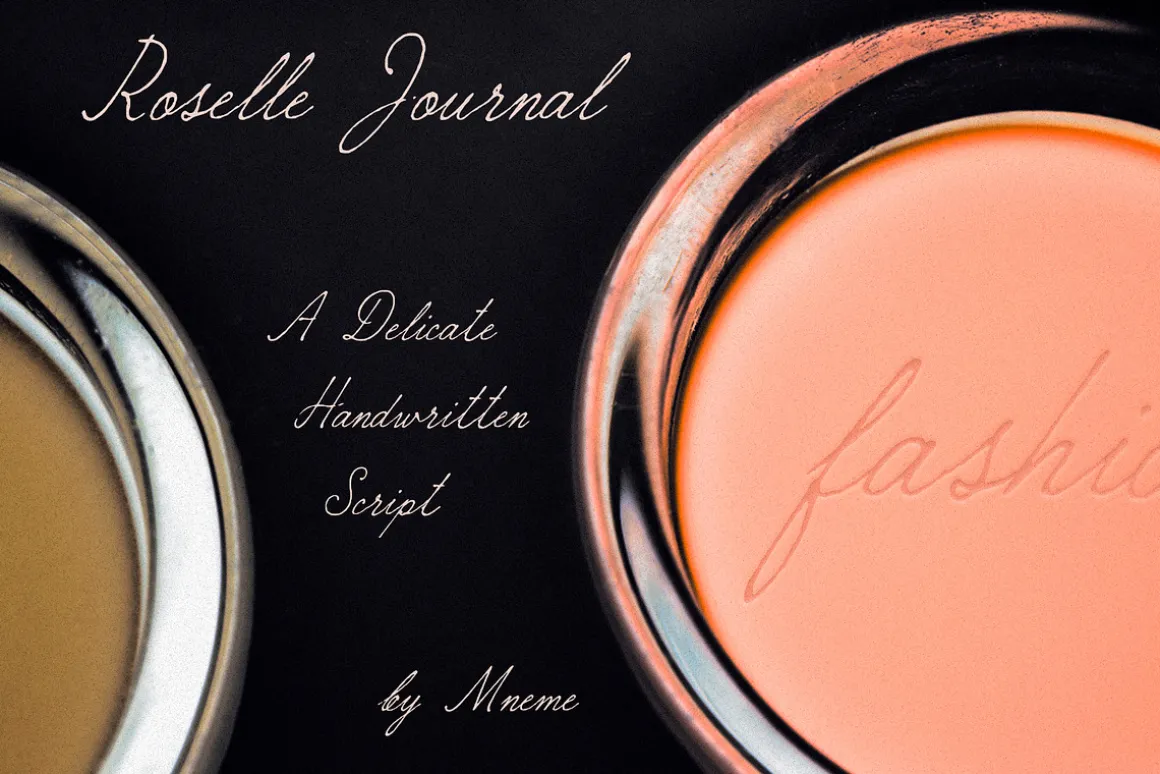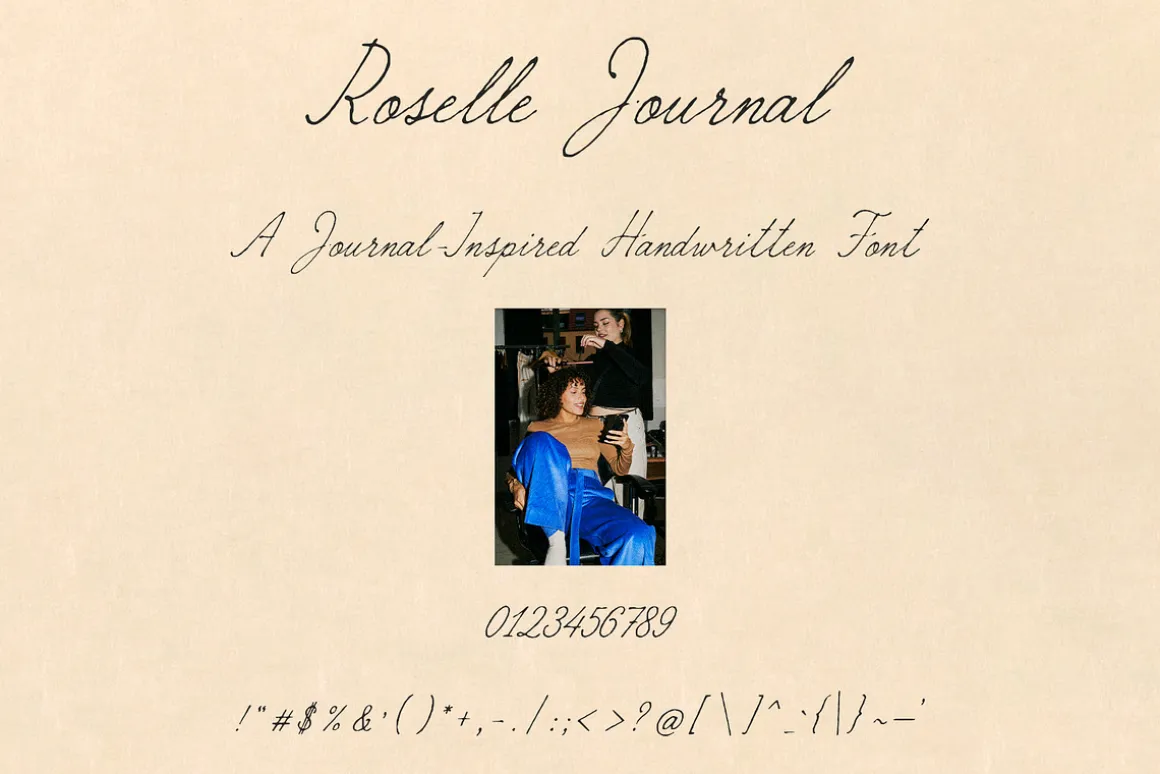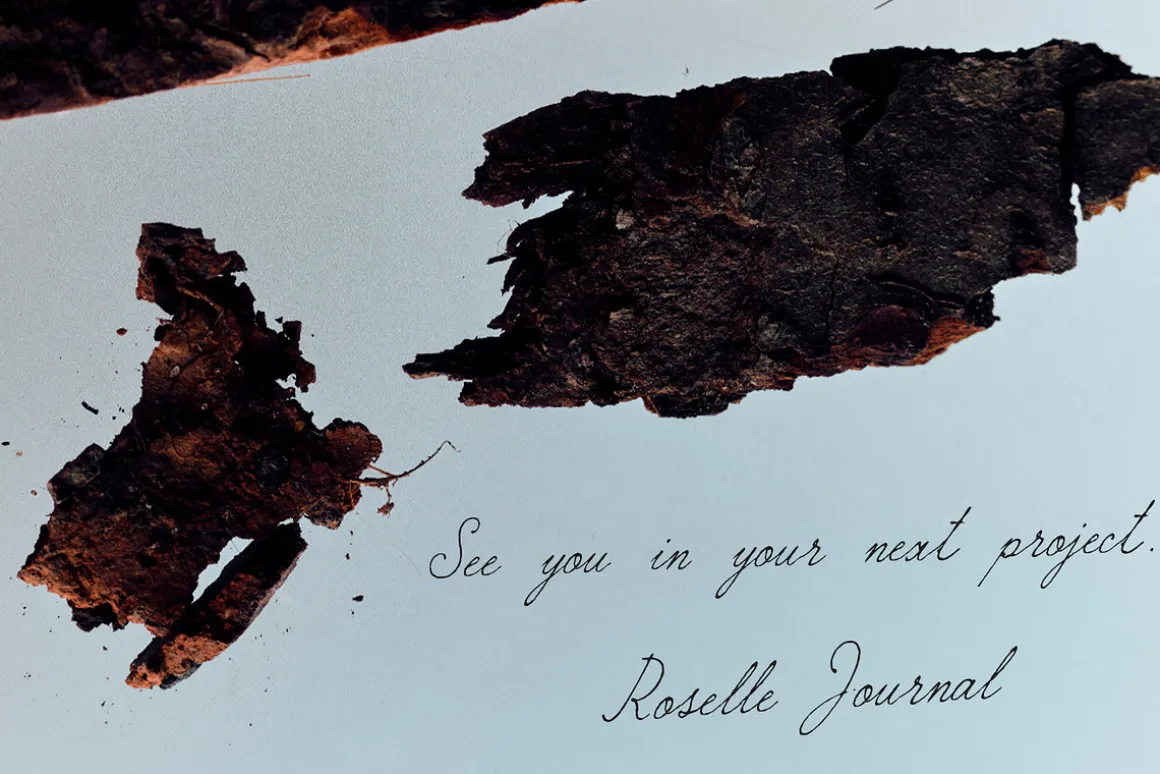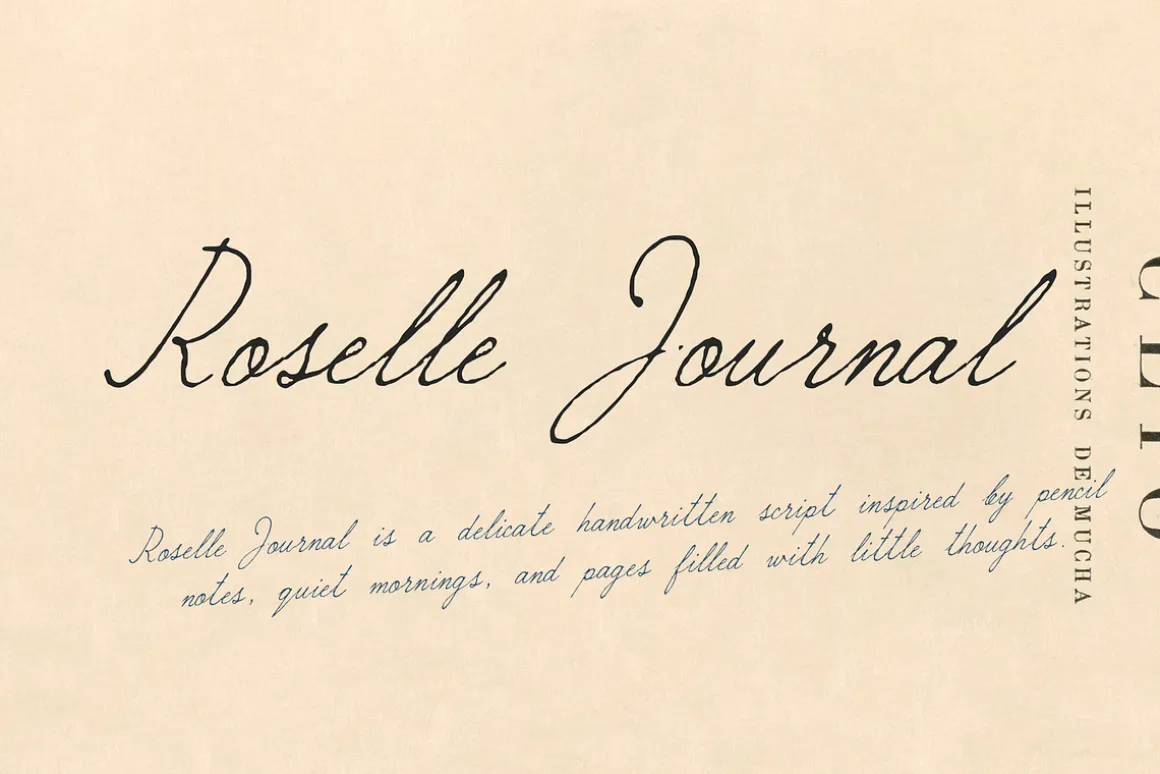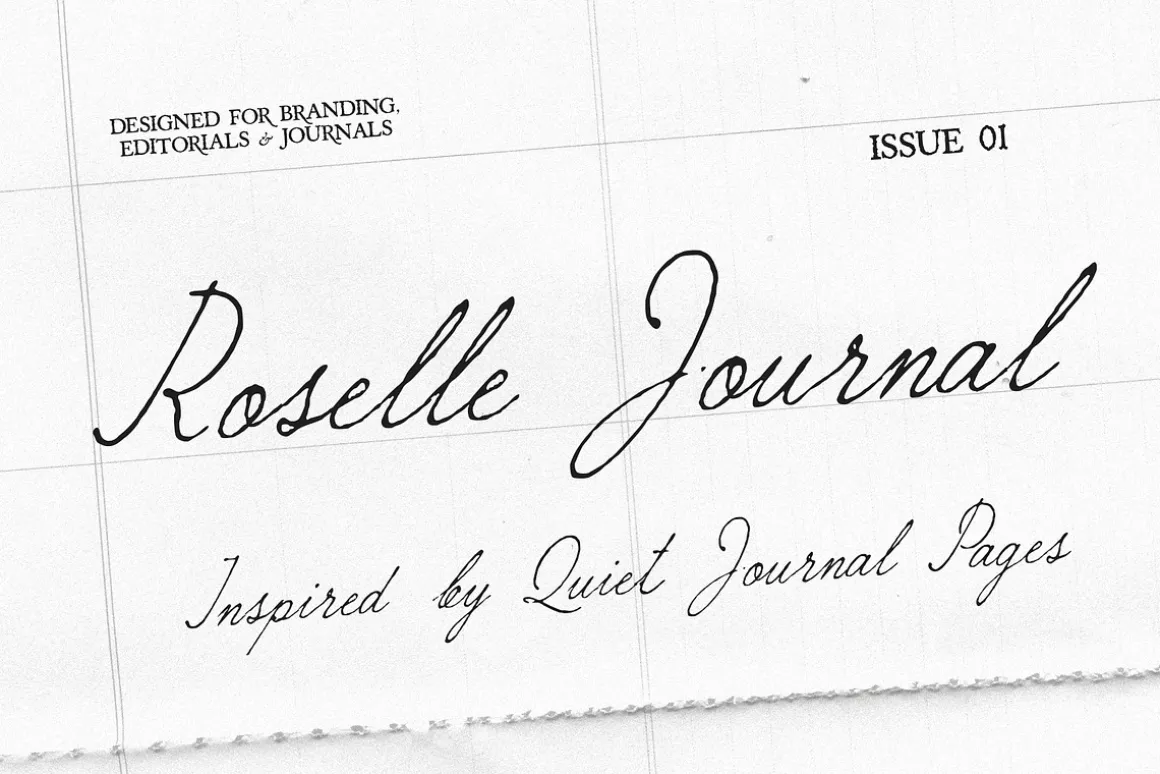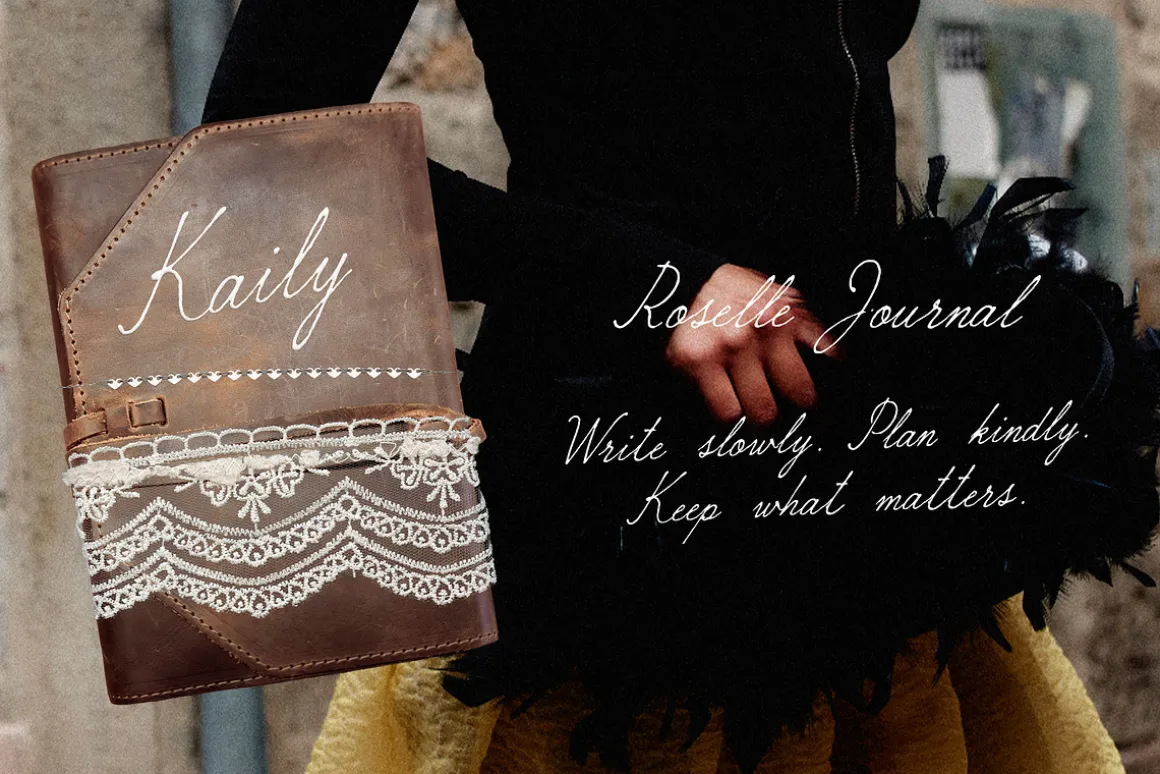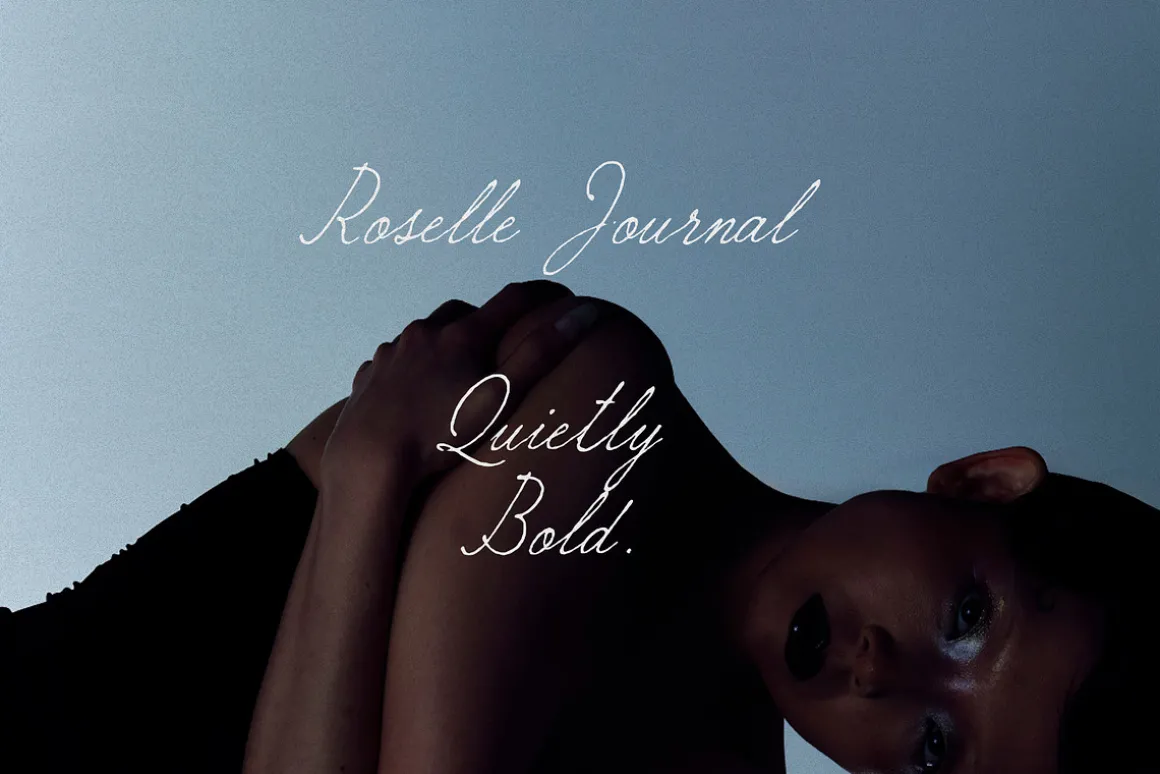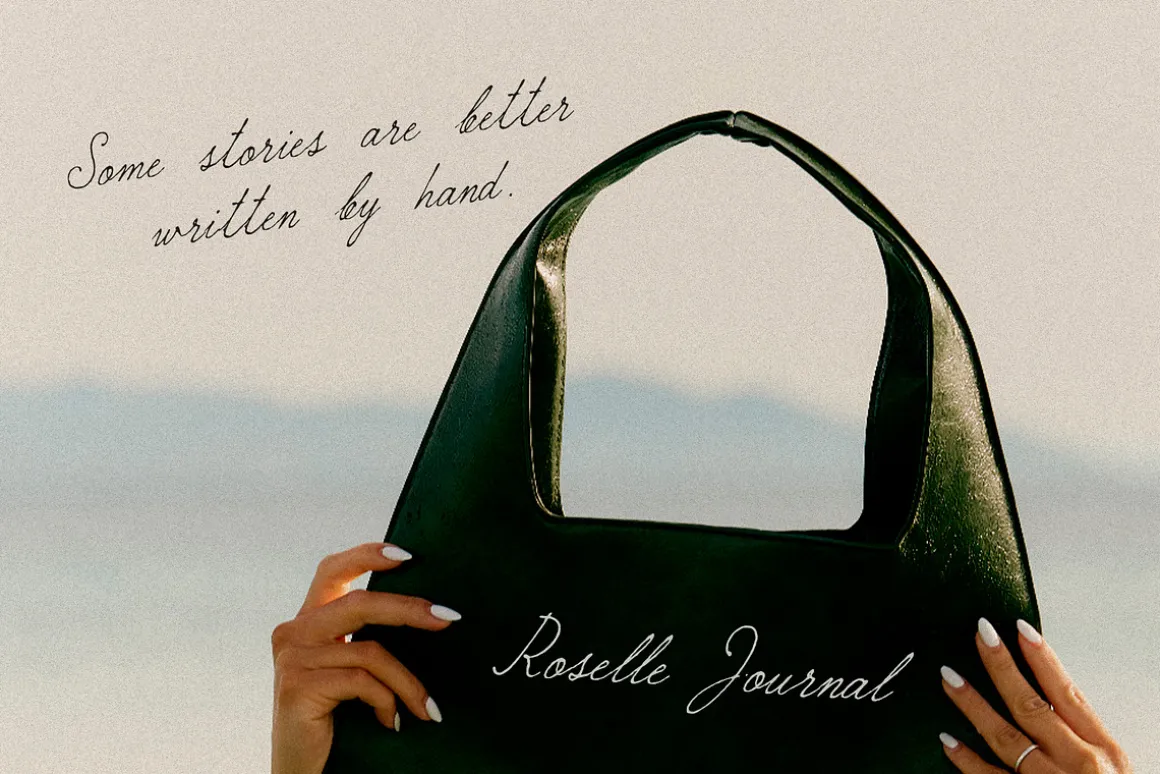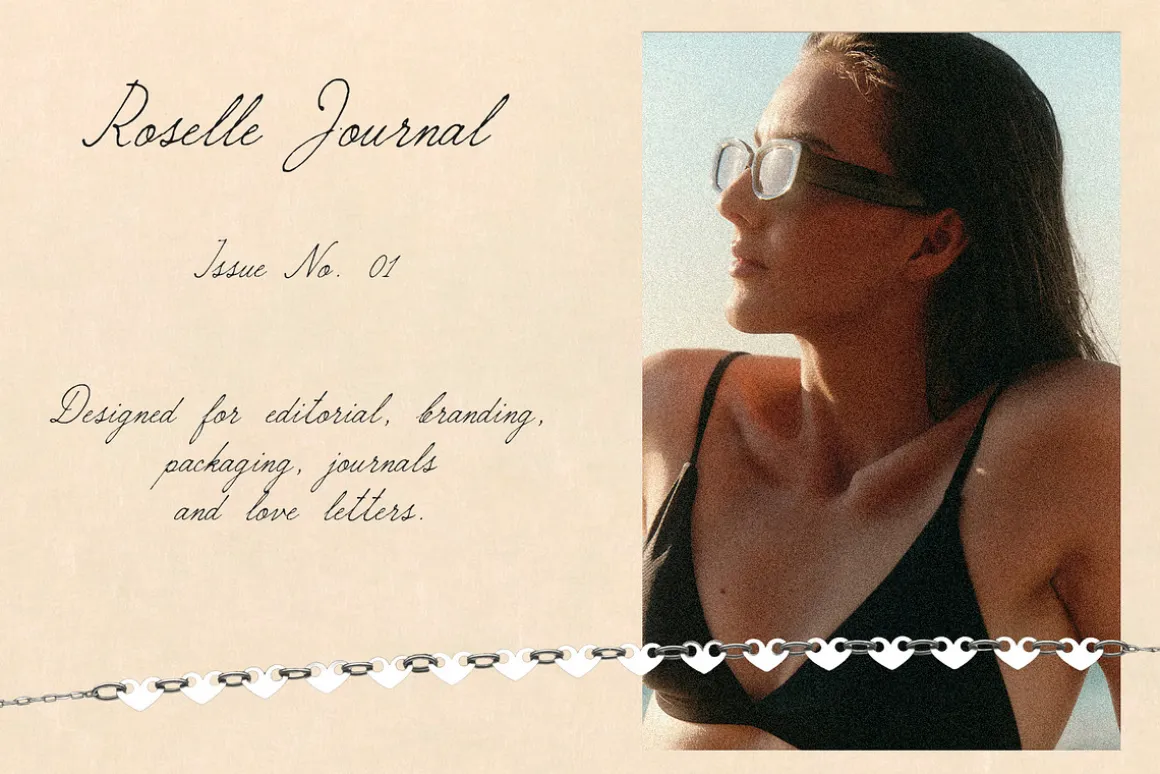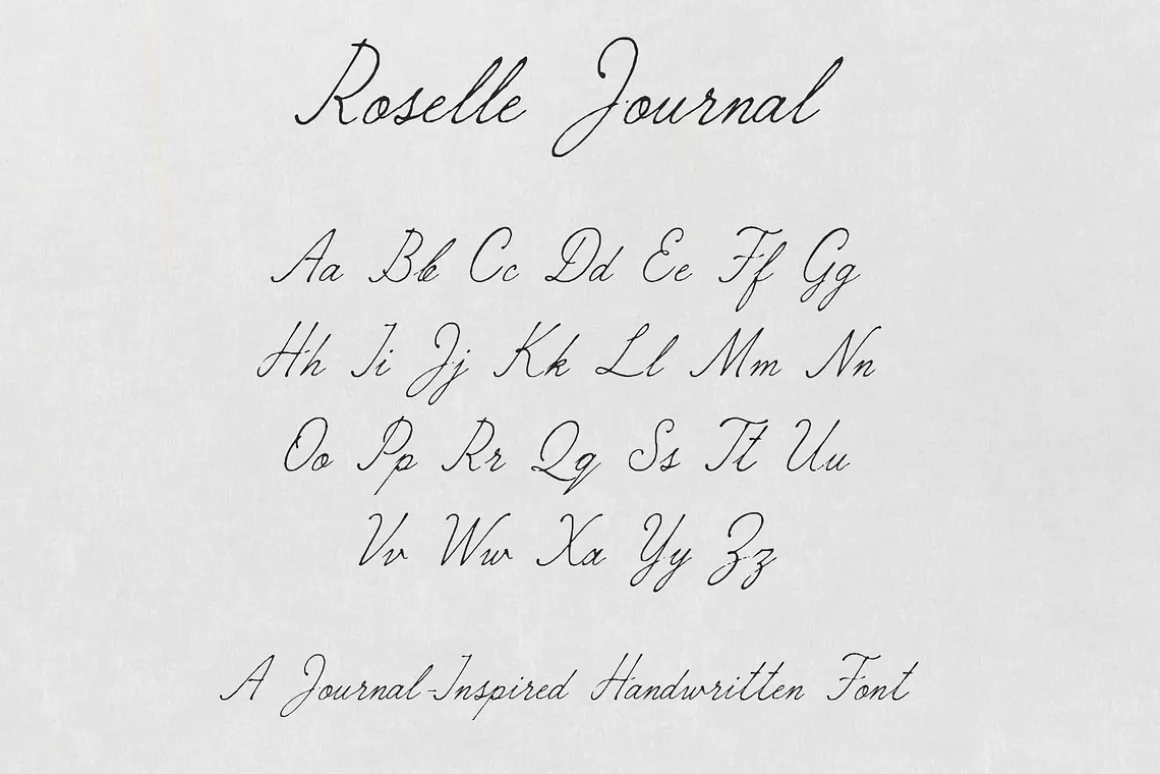
Roselle Journal is a naturally textured handwritten script inspired by quiet journal pages, personal notes, and editorial handwriting.
Created to feel authentic rather than perfect, it combines elegant flowing capitals with relaxed lowercase letters and subtle pencil-like texture. Every stroke captures the charm of real handwriting while remaining highly readable for professional design work.
Perfect for luxury branding, fashion campaigns, beauty packaging, jewelry logos, editorials, invitations, social media, and modern creative projects.
Whether you’re designing for a boutique brand or creating a personal journal aesthetic, Roselle Journal brings warmth, elegance, and effortless character to every composition.
Perfect For
• Luxury Branding
• Fashion Branding
• Editorial Design
• Beauty Brands
• Jewelry Brands
• Packaging
• Logos
• Invitations
• Social Media
• Pinterest Templates
• Journals
• Book Covers
• Signature Logos